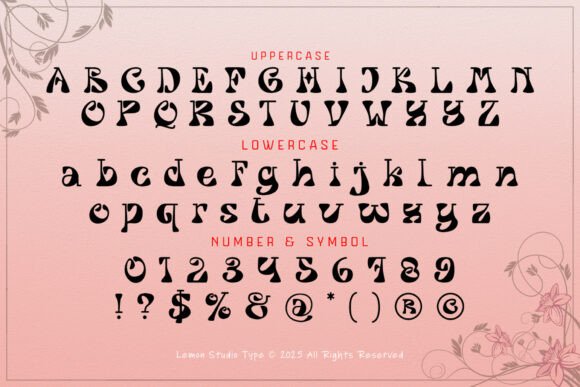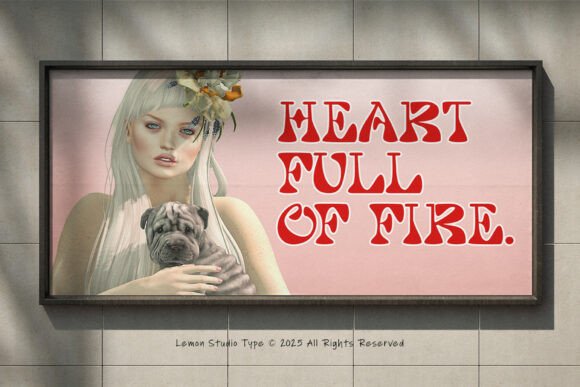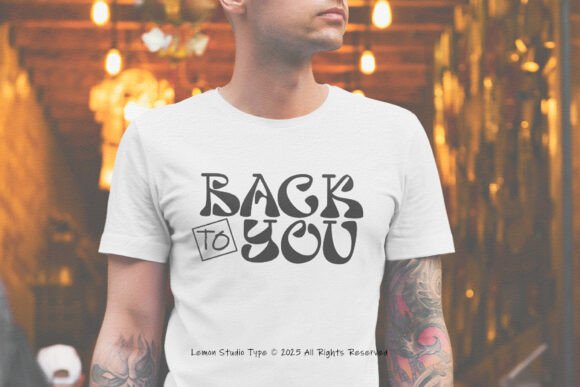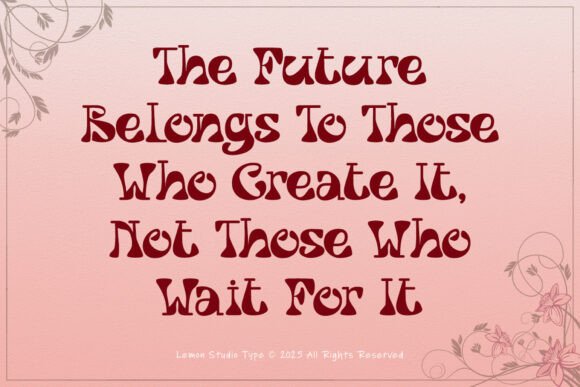
Introducing Corenesia Font: The Ultimate Groovy Typeface for Bold Designs
Are you ready to add a dash of psychedelic flair to your designs? Look no further than Corenesia Font, a bold display typeface that embodies the vibrant energy of the psychedelic era. With its fluid curves and groovy letterforms, Corenesia infuses a playful, artistic rhythm into any design, making it ideal for posters, branding, album covers, packaging, or social media visuals that require a striking statement.
A Font that Celebrates Boldness and Artistry
Corenesia Font is designed to capture the spirit of freedom and creativity, blending nostalgic 70s charm with a modern edge. Each letter dances with character, ensuring your message stands out in a crowd. Whether you’re a designer, craftsperson, or simply someone who appreciates bold and artistic typography, Corenesia is the perfect choice for your next project.
The Psychedelic Era Revival
The 1970s psychedelic era was a time of great creativity and experimentation in art, music, and design. Characterized by vibrant colors, swirling patterns, and a sense of freedom and nonconformity, this era produced some of the most iconic and enduring designs of the 20th century. Corenesia Font is a modern take on this classic style, updated for the digital age and ready to add a touch of retro flair to your designs.
Key Features of Corenesia Font
- Fluid Curves: Corenesia’s letterforms feature smooth, flowing curves that give the font its distinctive psychedelic feel.
- Groovy Letterforms: Each letter is carefully crafted to capture the playful, artistic spirit of the 1970s.
- Bold and Playful: Corenesia is a display typeface designed to make a statement, perfect for headlines, titles, and other prominent text elements.
- Modern Edge: While Corenesia pays homage to the past, it also has a distinctly modern feel that will help your designs stand out.
Use Cases for Corenesia Font
Corenesia Font is incredibly versatile and can be used in a wide range of design applications, including:
- Posters: Add a touch of psychedelic flair to your posters and flyers with Corenesia’s bold, playful letterforms.
- Branding: Use Corenesia to create eye-catching logos and brand identities that reflect your company’s personality and style.
- Album Covers: Give your music releases a retro vibe with Corenesia’s groovy, artistic typography.
- Packaging: Add a pop of color and personality to your product packaging with Corenesia’s bold, playful font.
- Social Media Visuals: Use Corenesia to create striking social media graphics that will help your brand stand out in a crowded feed.
Tips for Using Corenesia Font
To get the most out of Corenesia Font, here are a few tips to keep in mind:
- Experiment with Colors: Corenesia looks great in bold, bright colors, so don’t be afraid to get creative with your color palette.
- Play with Patterns: Add an extra layer of visual interest to your designs by combining Corenesia with patterns and textures.
- Mix and Match: Corenesia pairs well with a wide range of fonts, so feel free to experiment with different combinations to find the perfect look for your design.
Corenesia Font is a bold, playful typeface that’s perfect for designers and craftspersons who want to add a touch of psychedelic flair to their designs. With its fluid curves, groovy letterforms, and modern edge, Corenesia is the ultimate groovy typeface for bold designs. So why wait? Unleash your creativity and let your design shine with Corenesia Font!